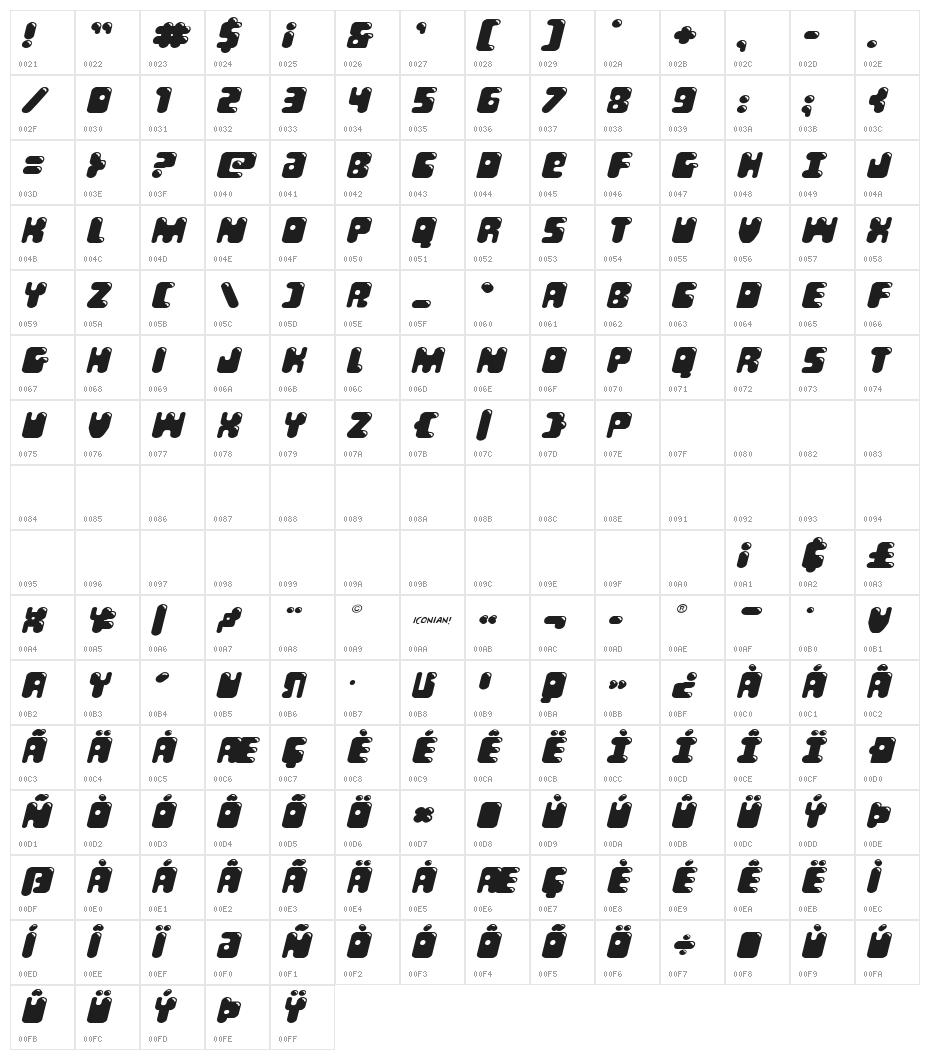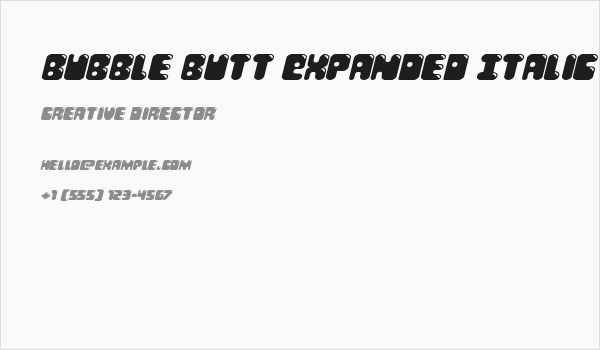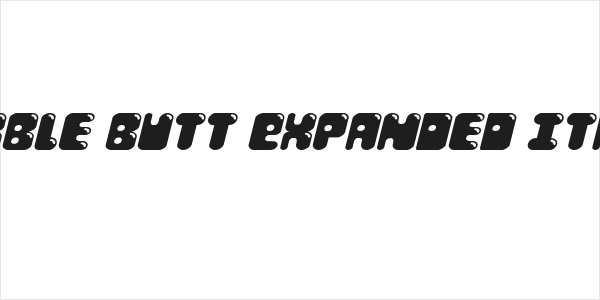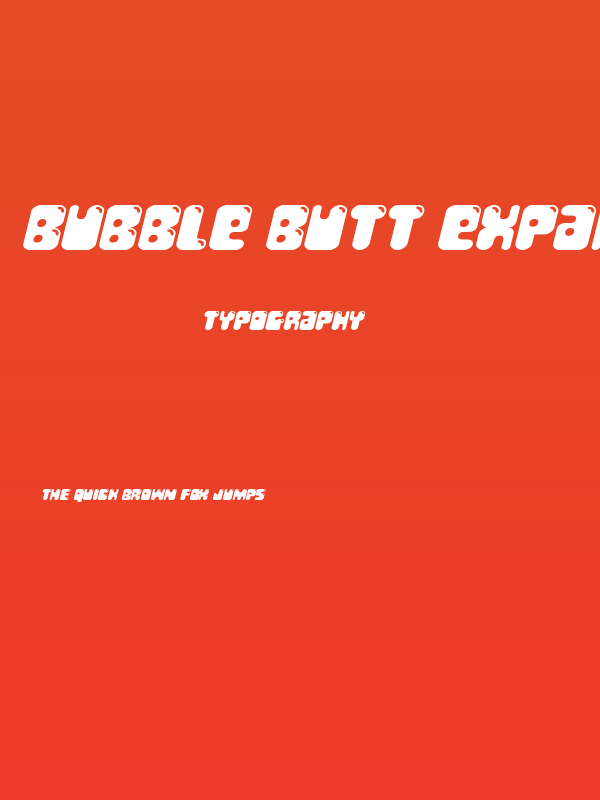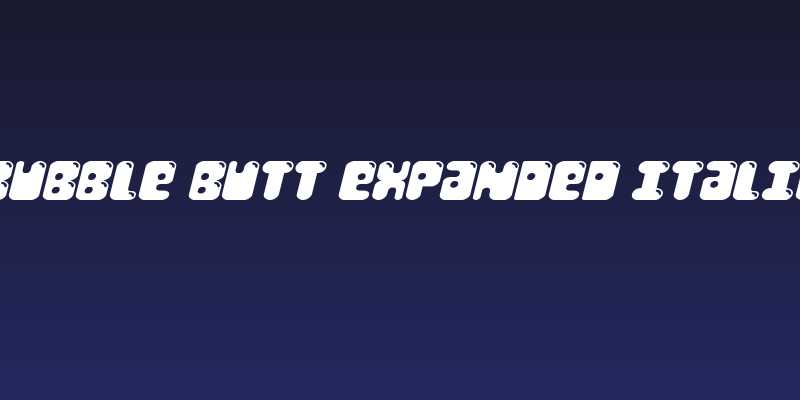
Bubble Butt Expanded Italic Font
Bubble Butt Expanded Italic Description
This playful and bold typeface features a bubbly, rounded design with an expanded width, giving it a unique and eye-catching appearance. The letters are italicized, adding a dynamic and energetic feel. The font is characterized by its thick, consistent strokes and smooth curves, making it ideal for creative and fun projects. The spacing between characters is relatively tight, enhancing its compact and cohesive look. The numbers and special characters maintain the same whimsical style, ensuring a uniform appearance across all text elements. This font is perfect for projects that require a touch of humor and personality.